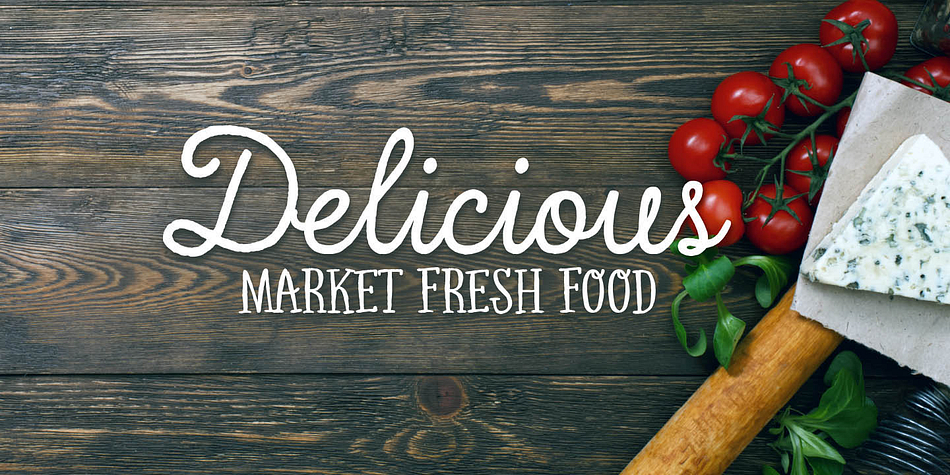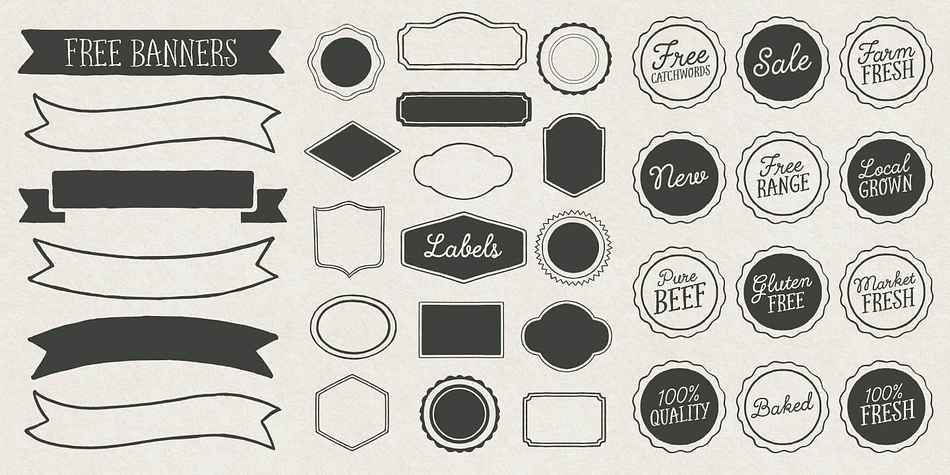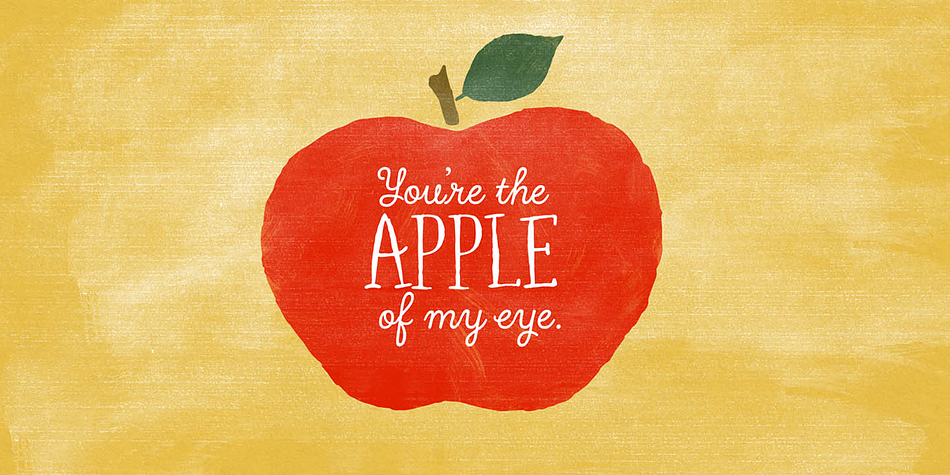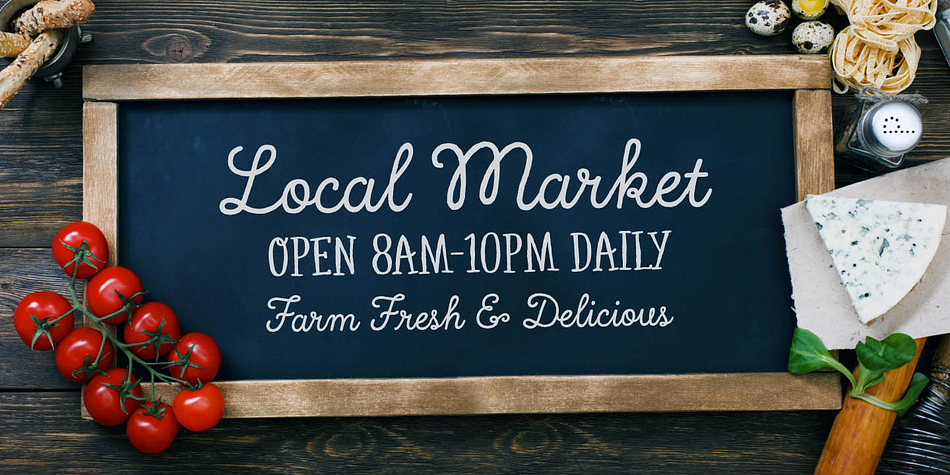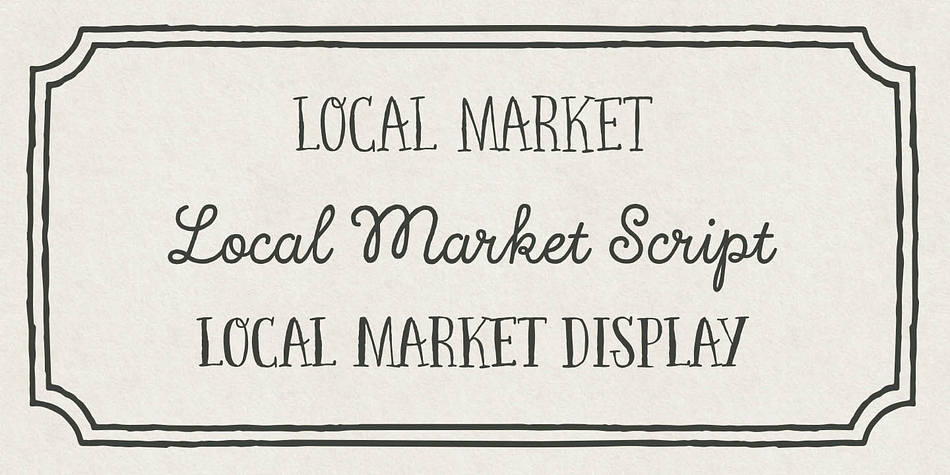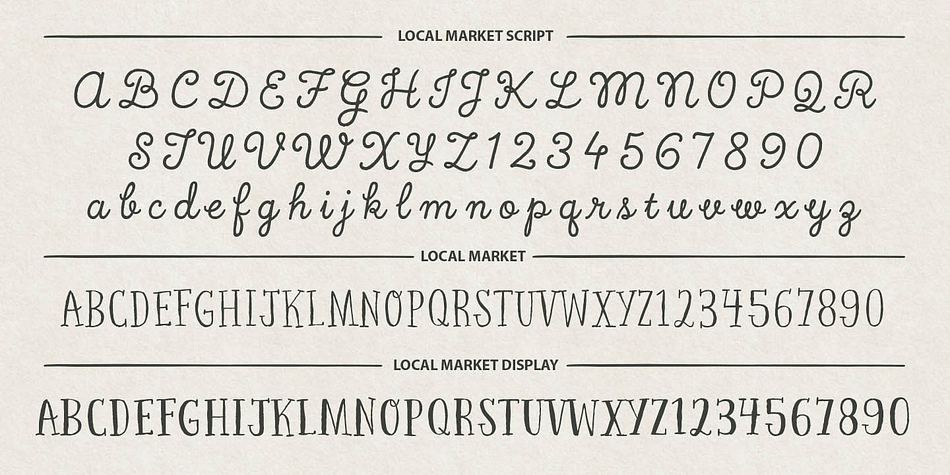
Local Market is a multiple classification font family. This typeface has nine styles and was published by Cultivated Mind.
Local Market is wonderful handmade font and art collection. Local Market comes in three font styles, multiple weights, extras, labels, and banners. The handwritten font styles include Local Market Basic, Display, and Script. Extras come with hand-drawn market animals, market food, catchwords, numbers, symbols, kitchen tools, farm icons, leaves, and ornaments.